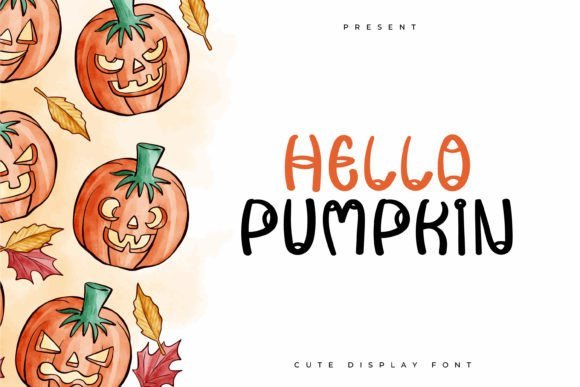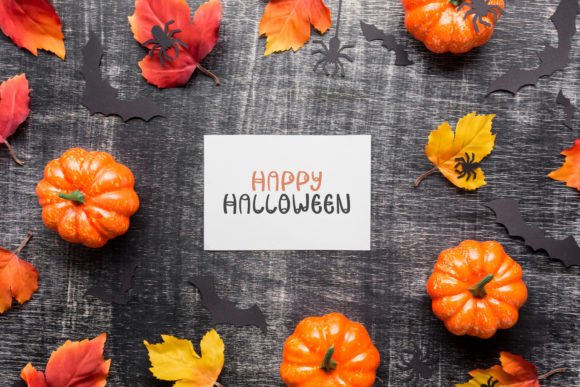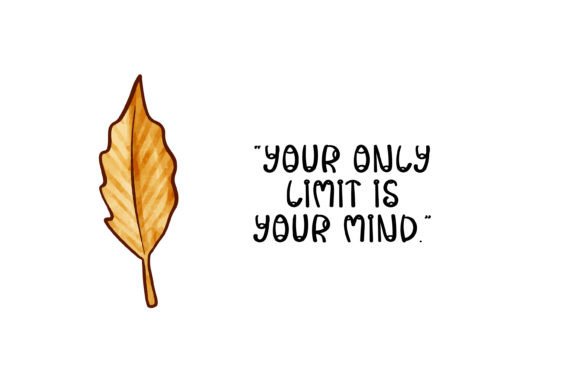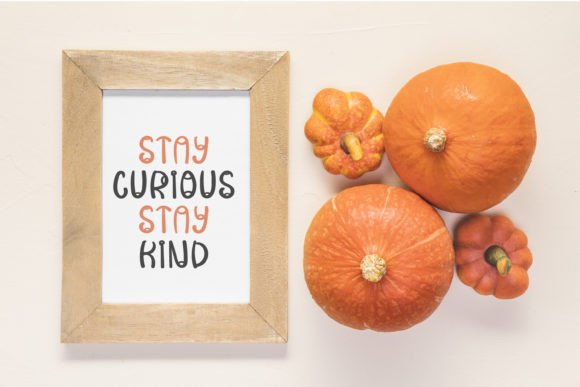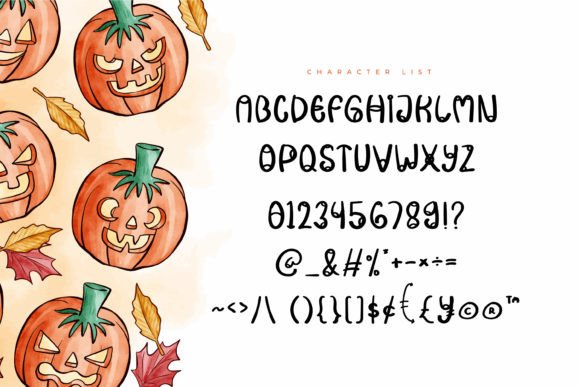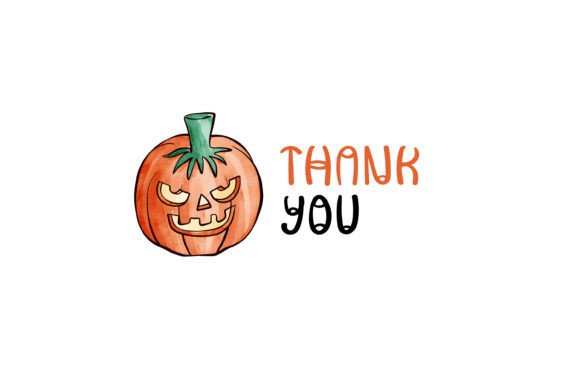
Unleash the Playfulness: Exploring the Hello Pumpkin Font
As a designer, there’s nothing quite like the thrill of discovering a new font that sparks creativity and brings a project to life. For many of us, that moment comes when we stumble upon a font that perfectly captures the essence of a particular theme or style. For me, that moment came when I laid eyes on the Hello Pumpkin Font.
This playful and cute display font is the perfect choice for any children’s activity or school project. Its trendiness and authenticity make it a valuable addition to any designer’s toolkit. Whether you’re working on a fun and quirky project or a more serious endeavor, the Hello Pumpkin Font is sure to bring a touch of whimsy and personality to your design. With its versatility and charm, it’s no wonder this font has become a favorite among designers.
Hello Pumpkin Font Key Features
- Font Family: Hello Pumpkin Font is a unique, handwritten font family with multiple styles.
- Unique Characteristics: Features a mix of playful and elegant elements, perfect for creating eye-catching designs.
Hello Pumpkin Font Review
Overall, I’m quite impressed with the “Hello Pumpkin Font”. It’s a beautiful, playful font that’s perfect for fall-themed designs, but it can also be used for other seasonal projects.
What works well: ✨ The font has a great balance between elegance and whimsy, making it perfect for a variety of design projects. It’s also very versatile, with both uppercase and lowercase letters available. Additionally, the font is highly customizable, with a range of weights and styles to choose from.
What’s not so great: ⚠️ One of the main limitations of the font is that it’s not suitable for all types of projects. For example, it may not be the best choice for formal or professional designs, as it has a somewhat informal feel. Additionally, some of the characters may not render correctly in certain situations, which can be frustrating.
Overall impression: I would highly recommend the “Hello Pumpkin Font” for anyone looking for a fun and playful font for fall-themed designs or other seasonal projects. While it may not be suitable for all types of projects, it’s a great choice for those who want to add a little bit of personality to their designs.
- Perfect for fall-themed designs and other seasonal projects
- Highly customizable with a range of weights and styles
- Not suitable for formal or professional designs
- Some characters may not render correctly in certain situations
The Hello Pumpkin font is perfect for creating a warm and inviting atmosphere in designs, such as:
- Halloween-themed designs
- Fall or autumn-themed designs
- Food or beverage branding
- Wedding or event invitations
Remember to use the font in moderation and balance it with other design elements to achieve the desired look.